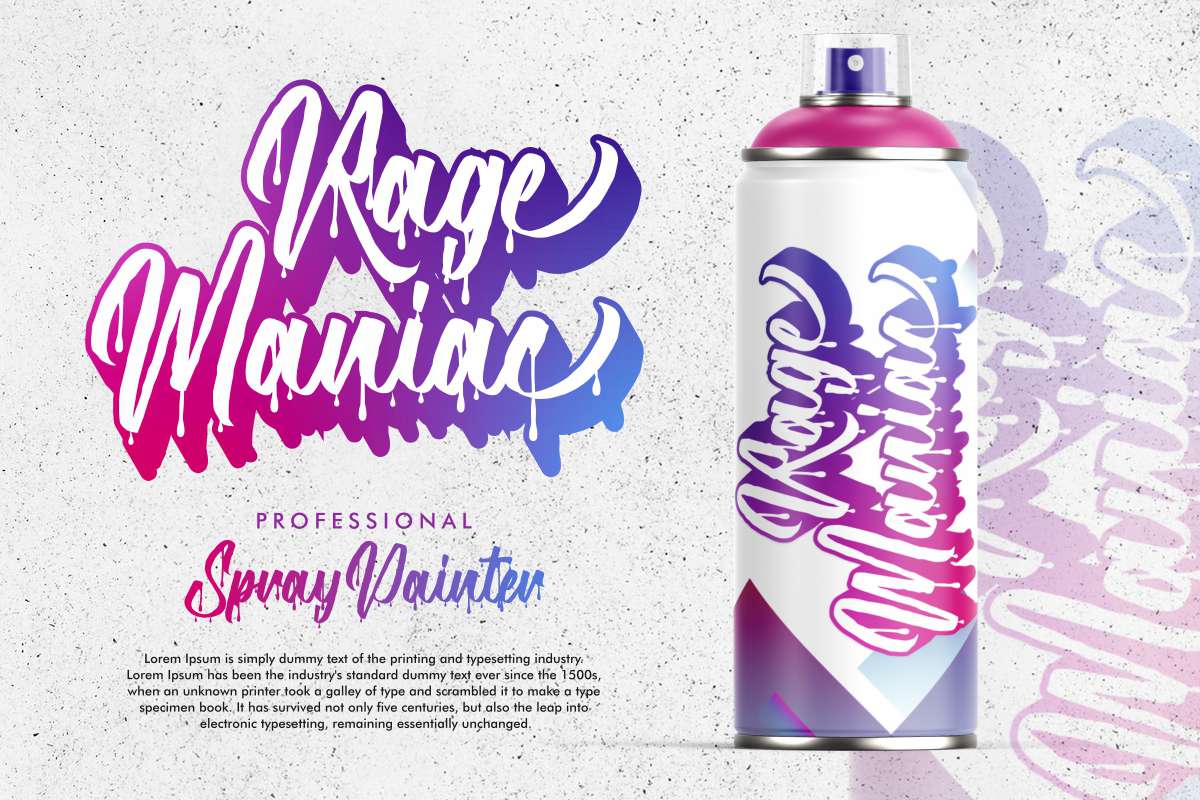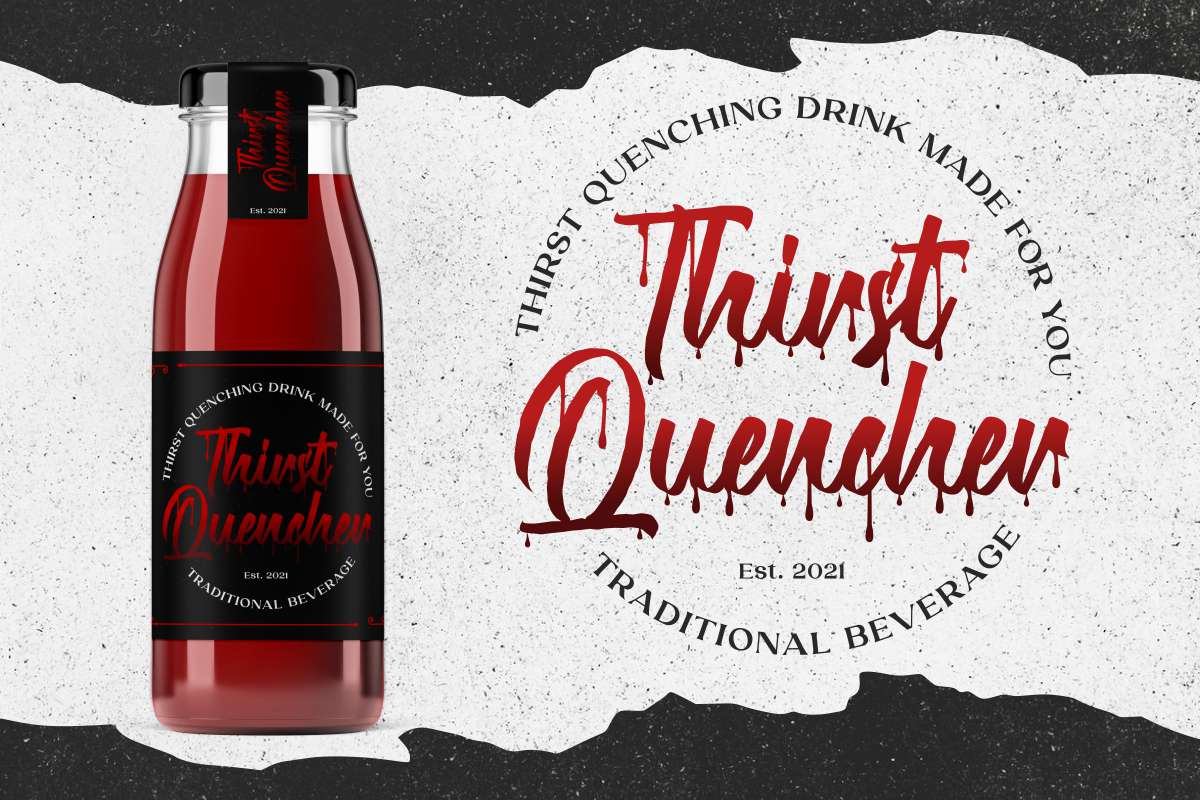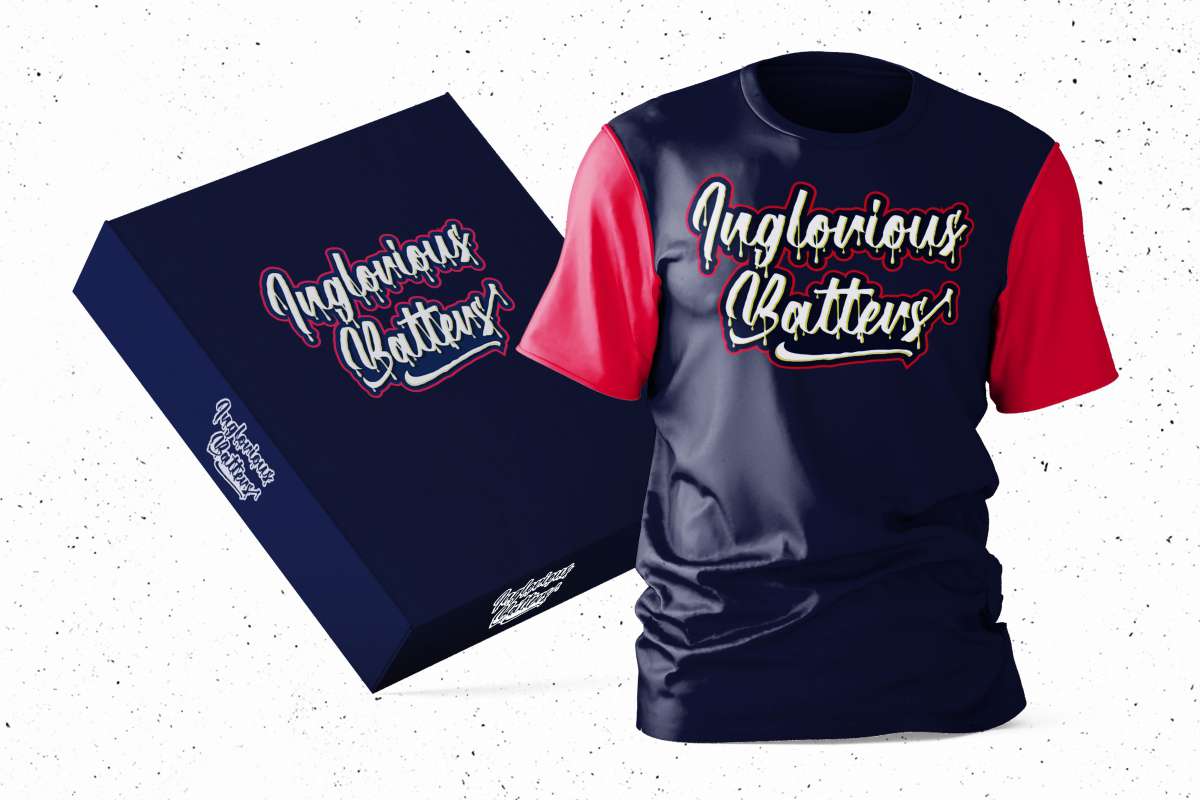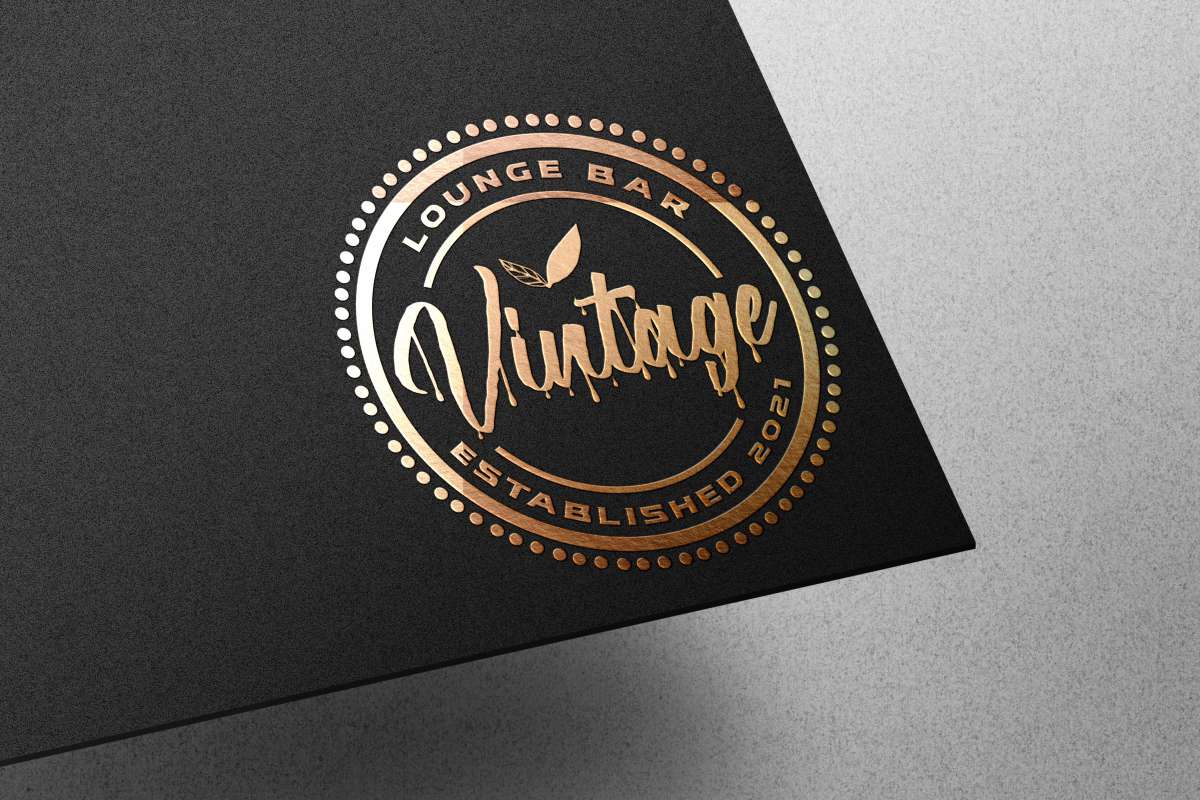
Fight Hard Font
Fight Hard Script Font
It’s a graffiti and horror display font with dripping brush style on the letters. This fancy font has a spooky and unique style that looks amazing for your projects. Use it for logo branding, poster, products packaging, signage, title, and more!
Fight Hard Font includes full set of Uppercase and Lowercase Basic Characters, Numerals and Punctuation. This font would be great to use for any project that requires a bold custom look!